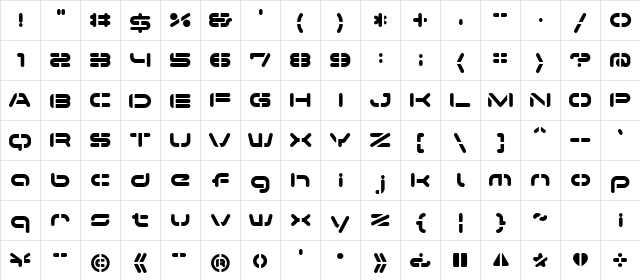
TMExtendedStencilAl Regular
Design Context for TMExtendedStencilAl Typeface
TMExtendedStencilAl has the rough pragmatism of spray-painted stencil signage, adding a raw, street-level authenticity to designs.
A strong choice for packaging that needs edge, warehouse aesthetics, and rough-and-ready visual identities.
Pro Tip: Use TMExtendedStencilAl at large sizes on packaging, posters, or apparel where the stencil cutaways read clearly. Avoid small sizes where those gaps become visual noise.